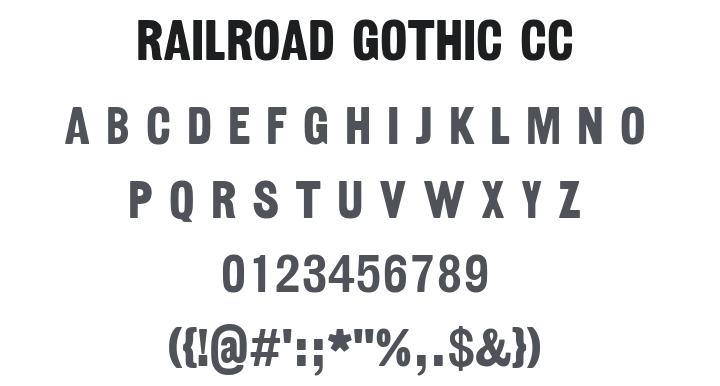
Railroad Gothic CC Font
by indestructible type
Railroad Gothic CC Font
About Railroad Gothic CC
A Historical revival of Railroad Gothic by indestructible type*